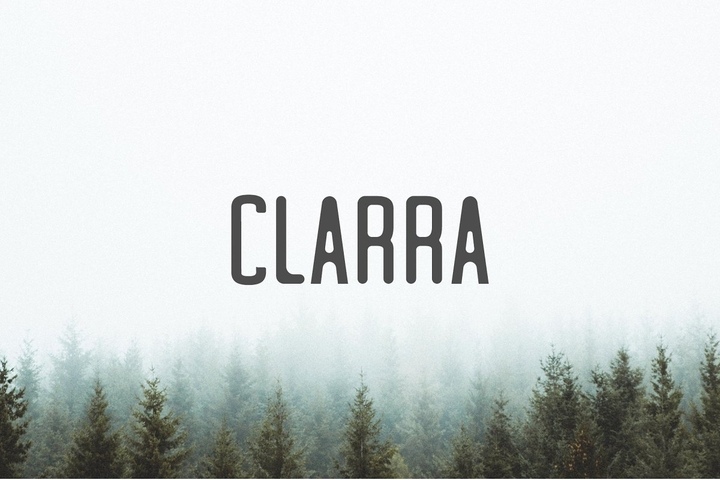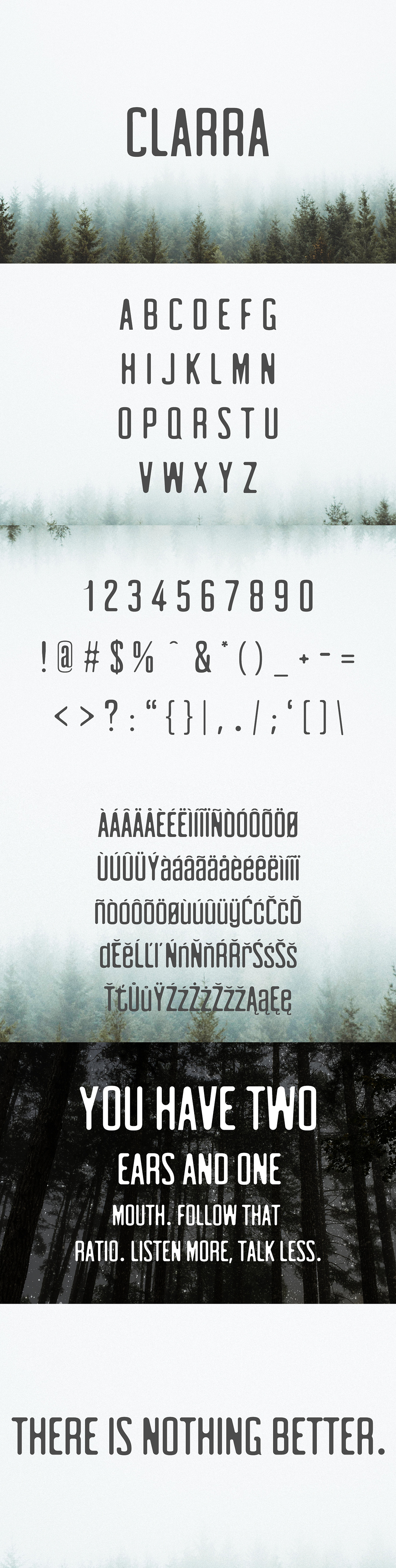
Clarra Sans Serif Font Family
This modern sans serif typeface is perfect for web design, mobile applications, corporate branding, minimalist logos, tech startups, presentations, user interfaces, signage systems, and contemporary marketing materials. Clarra Sans Serif Font Family excels in both digital environments and print media where clean, readable typography is essential.
What makes Clarra Sans Serif Font Family so exciting is its exceptional versatility and contemporary appeal. The font features clean, geometric letterforms with subtle humanistic touches that create a perfect balance between professionalism and approachability. Each character has been carefully optimized for maximum legibility across all screen sizes and print applications. The font's neutral yet distinctive personality makes it incredibly adaptable, allowing it to enhance rather than compete with your design content while maintaining strong visual impact.
The Clarra Sans Serif Font Family includes comprehensive weight variations: Thin, Light, Regular, Medium, Semi-Bold, Bold, and Black, along with their matching italic counterparts. This extensive range provides designers with complete typographic flexibility to establish clear hierarchies and create cohesive design systems. Each weight maintains the family's core characteristics while offering unique visual presence for different applications.
Whether you're developing modern websites, creating corporate identities, or designing sleek mobile interfaces, Clarra Sans Serif Font Family Free Download provides the clean aesthetic today's designers demand. Its contemporary styling makes it particularly suitable for technology companies, creative agencies, healthcare organizations, and educational institutions. The font's excellent screen optimization ensures crisp rendering across all devices, while its professional appearance builds trust and credibility with your audience.
This versatile sans serif family continues to gain popularity among designers who value clarity, modernity, and typographic excellence.